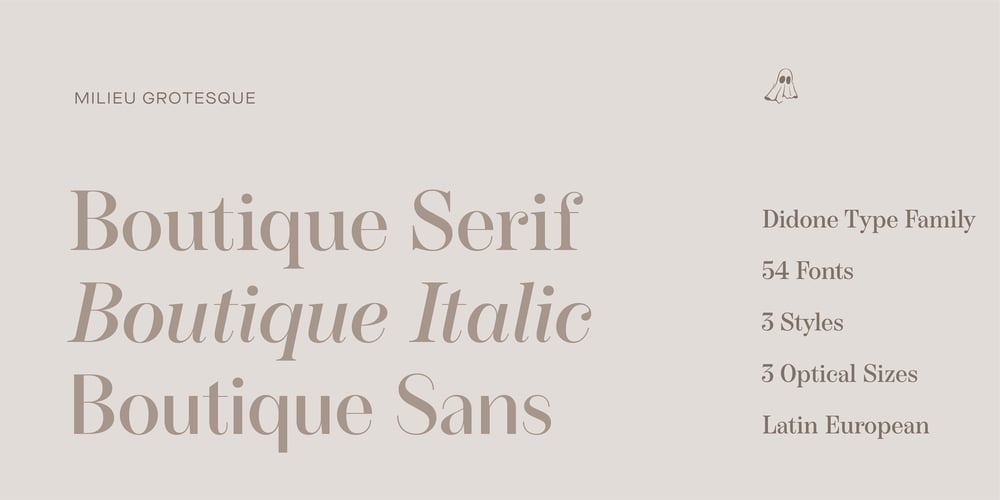
Boutique
Boutique font
Boutique Font Family was designed by Timo Gaessner and published by Milieu Grotesque. Boutique contains 54 styles and family package options. Boutique is a reinterpretation of Modern typefaces that posits an alternative present for the genre. Our initial version of Boutique explored the relationship between Modern typefaces and Modernism. Built upon a Didone Skeleton, we amplified its geometric character and stripped away ornament to create an elegant sans-serif with an idiosyncratic edge. We have since overhauled Boutique to create a comprehensive family. Adding a serif and italic in three optical variations for small (S), medium (M), and large (L) applications. The updated Boutique features additional and refined glyphs, styles, and weights to create a freely interchangeable typographic system.